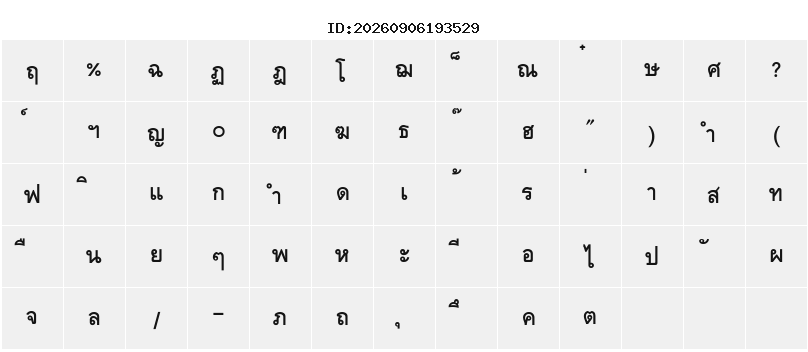
TATM001 Preview
About TATM001.ttf
TATM001.ttf is a modern, elegant sans-serif font designed for ultimate readability and visual harmony. Perfect for branding, headlines, web design, and print materials.